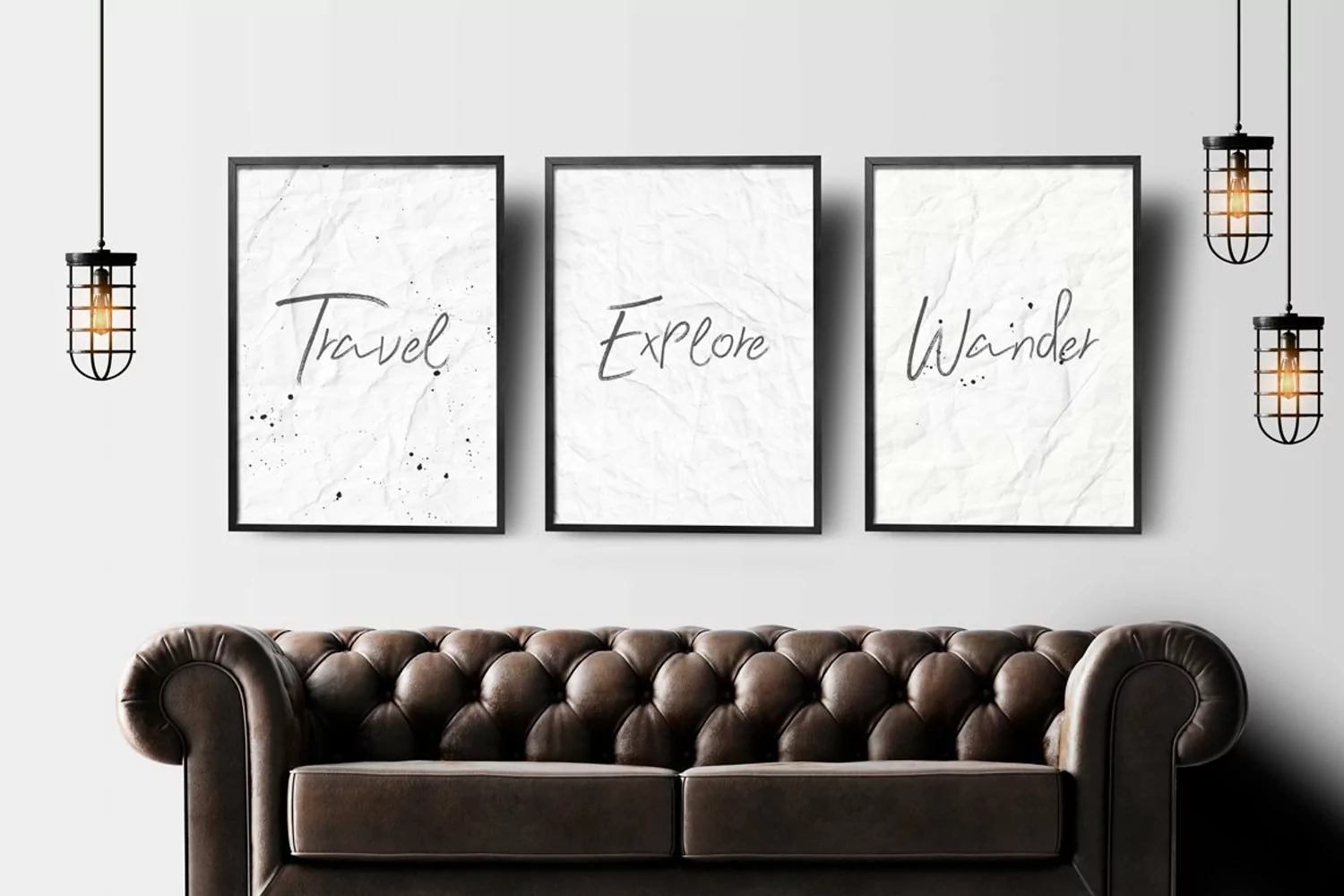
Rogue Design is a brand new rough Script Font available for ONLY $12! This beautifully rough script typeface was created by hand using Calligraphy pens, before being digitally converting online. We hope you like it as much as we doDownload your copy today for just $12.Whats Included: